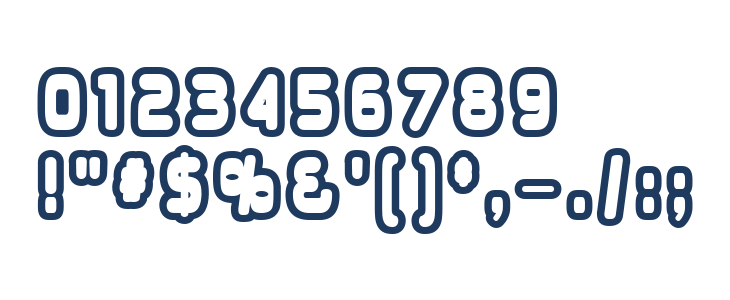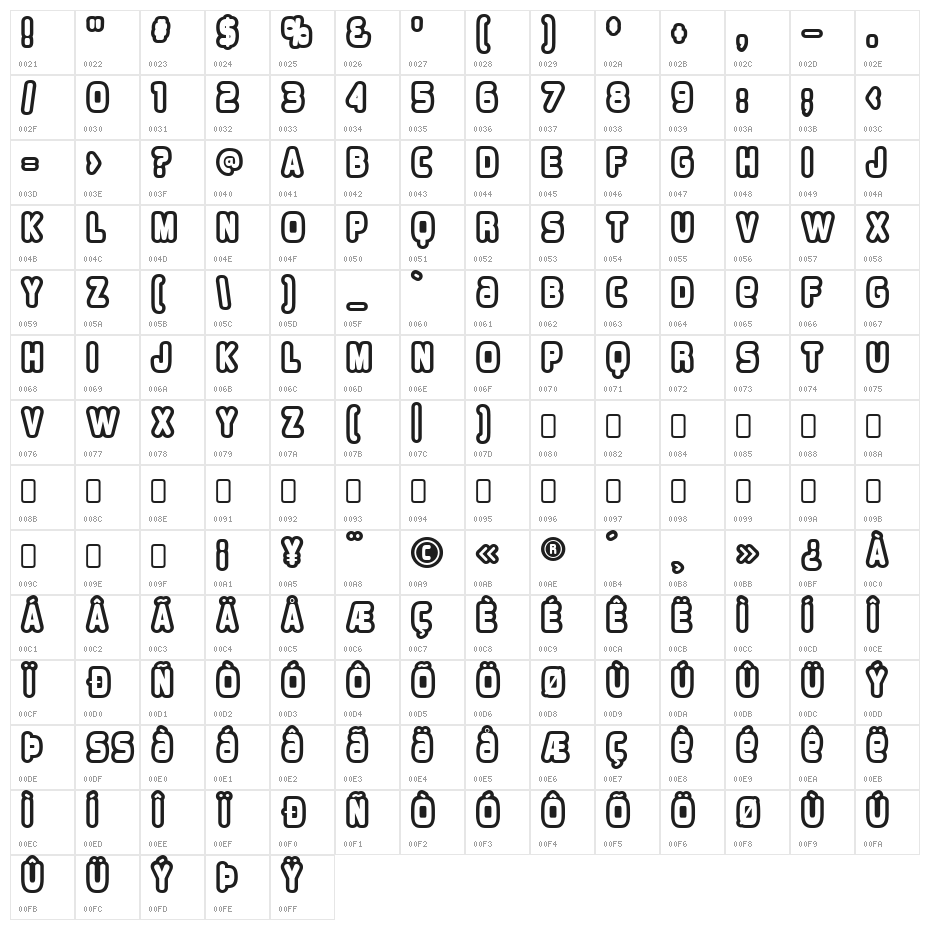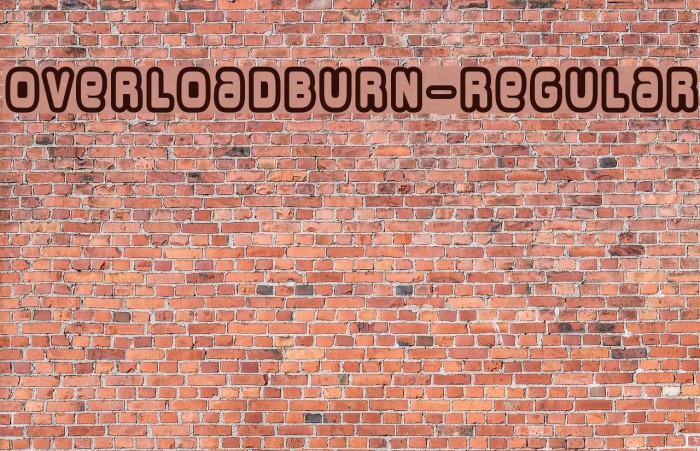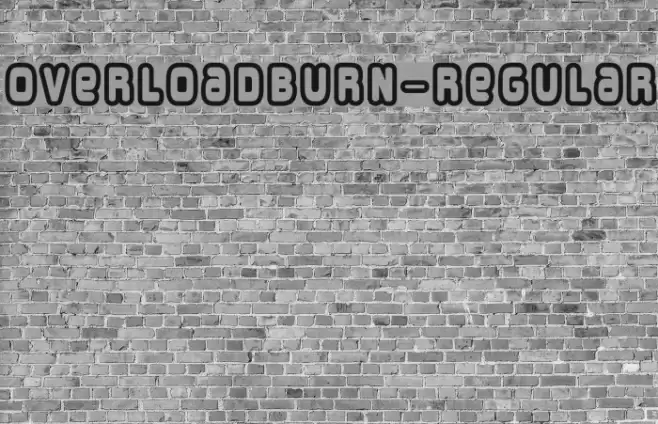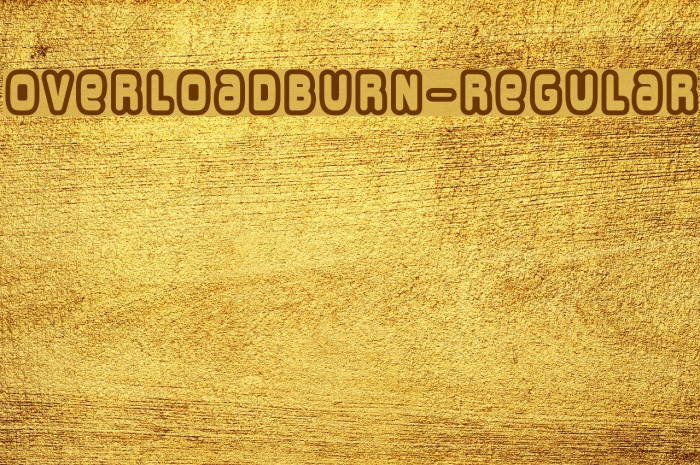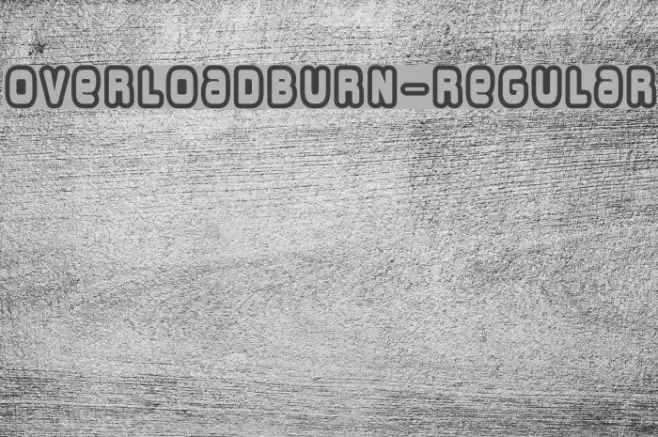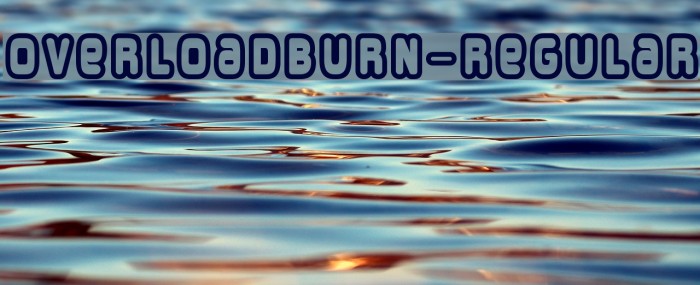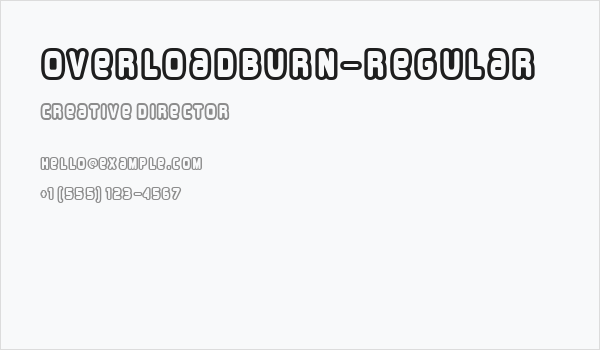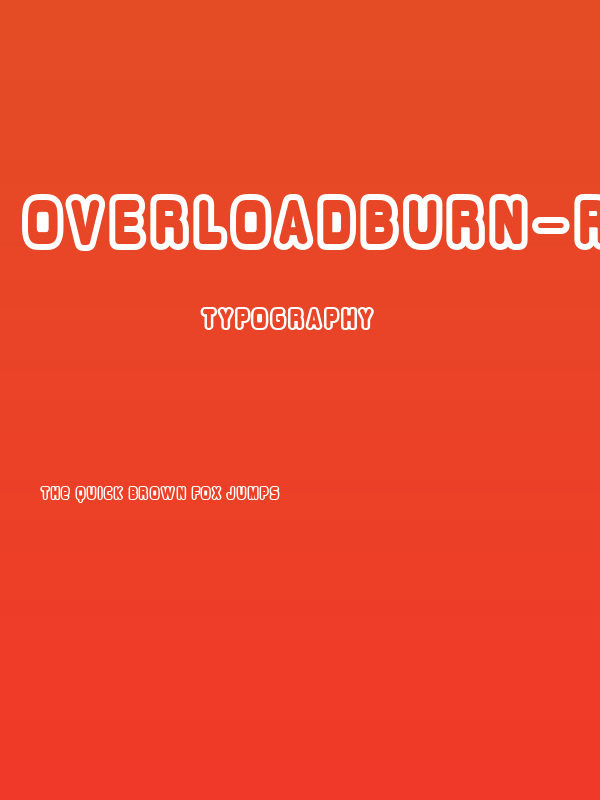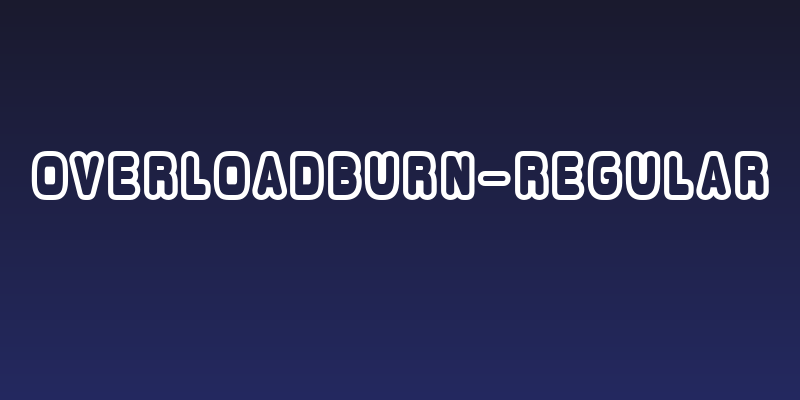
OverloadBurn-Regular Font
OverloadBurn-Regular Description
This font features a bold, playful style with thick, rounded edges and a strong outline that gives each character a bubble-like appearance. The letters are uniformly structured, maintaining a consistent height and width, which enhances readability while adding a touch of fun and creativity. The numbers and special characters follow the same design principles, ensuring a cohesive look across all elements. This font is ideal for projects that require a lively and engaging visual impact, such as children's books, posters, or branding for playful products.
| Overall Style | Playful, Modern |
| Proposed Projects | Ideal for children's books, playful branding, posters, and creative projects. |